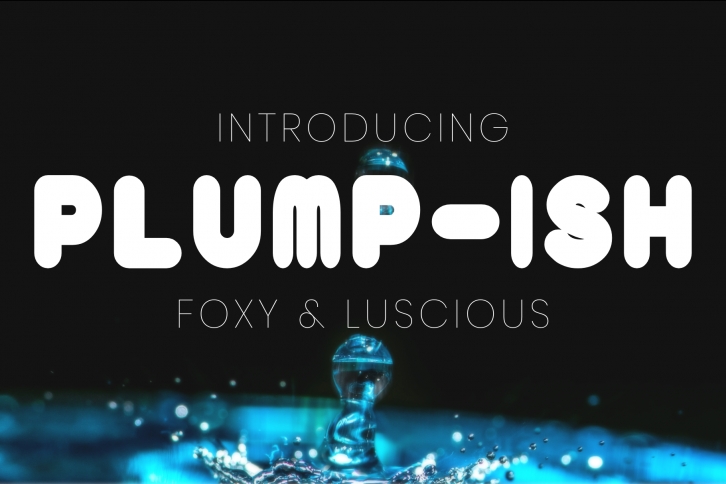
Plump-Ish is a cool and casual display font. No matter the topic, this font will be an incredible asset to your fonts’ library, as it has the potential to elevate any creation.